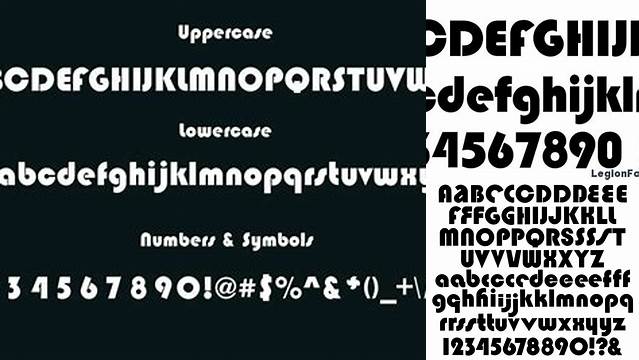
Unveiling the Blippo Black EF Font
First things first, what is Blippo Black EF? Well, it's a bold, eye-catching typeface that's perfect for making a statement. It's got this friendly, rounded design that's instantly recognizable and adds a touch of playfulness to any project. Think of it as the cool, approachable cousin of your more serious fonts. This font is part of the Blippo family, but the Black EF style is particularly striking due to its heavier weight and emphasis on the rounded forms. This makes it incredibly readable, even at larger sizes, and gives a strong visual impact, perfect for headlines, posters, and any design where you want to grab attention. It’s a go-to for designers looking to inject a dose of personality and character into their work. If you're aiming for something modern, a little bit quirky, and undeniably memorable, Blippo Black EF is definitely worth considering. The font's popularity stems from its versatility. It works beautifully across a wide range of applications, from websites and social media graphics to print materials like flyers and brochures. Its unique style enables it to stand out from the crowd, ensuring your message is not only read but remembered. The clean design and pronounced curves allow for easy readability, and the strong presence it brings to the table can quickly make your work more engaging and captivating. Finding a font that is both visually appealing and highly functional is a win, and Blippo Black EF offers exactly that, making it a favorite for designers across industries.
Blippo Black EF distinguishes itself with its bold, striking appearance and approachable feel, which makes it ideal for a variety of design projects. Its rounded letterforms give off a friendly vibe, which is why it's often used for creative designs. Blippo Black EF is an excellent choice for designs where you want to communicate in a clear, striking way. It works great for creating headlines and titles that stand out. The thick strokes and rounded shapes are designed to get noticed, making it great for grabbing attention. Whether you're working on a website, social media post, or printed materials, Blippo Black EF is a versatile choice that elevates your design and communicates your message with style. Blippo Black EF's flexibility means it's not confined to a single design niche. It finds its place in everything from branding projects to packaging. The font can transform a simple text into a visual statement, enhancing the overall appeal. Its adaptability makes it a valuable asset for any designer, from those just starting out to seasoned pros. The font's ability to blend with many styles makes it a perfect choice. The bold strokes, while attention-grabbing, also lend themselves to readability. This is important as it guarantees that your message is clear and easy to understand, even at a quick glance. The distinctive style ensures that any text using Blippo Black EF will make a lasting impression.